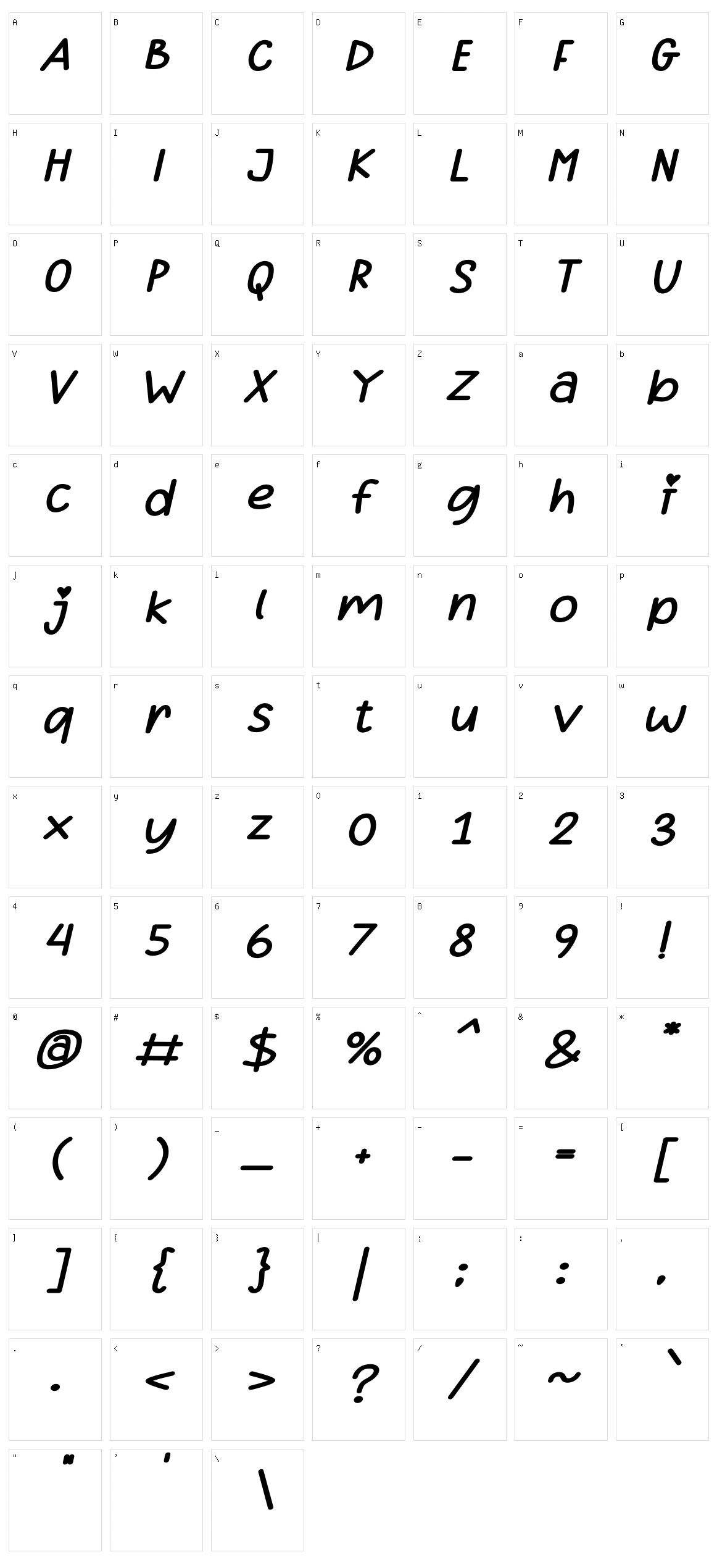
The free font Rain Kiss is carefully designed by Letterena Studios, showcasing a thoughtful balance of creativity and usability and falls under the Cartoon font style. When you download the ZIP file, it contains only 204.09 KB of font files, making it lightweight and quick to download. Please review the license details below to understand permitted usage and distribution rights. If license information is not available, we recommend using this font for personal projects only or contacting the author directly for commercial usage permissions.